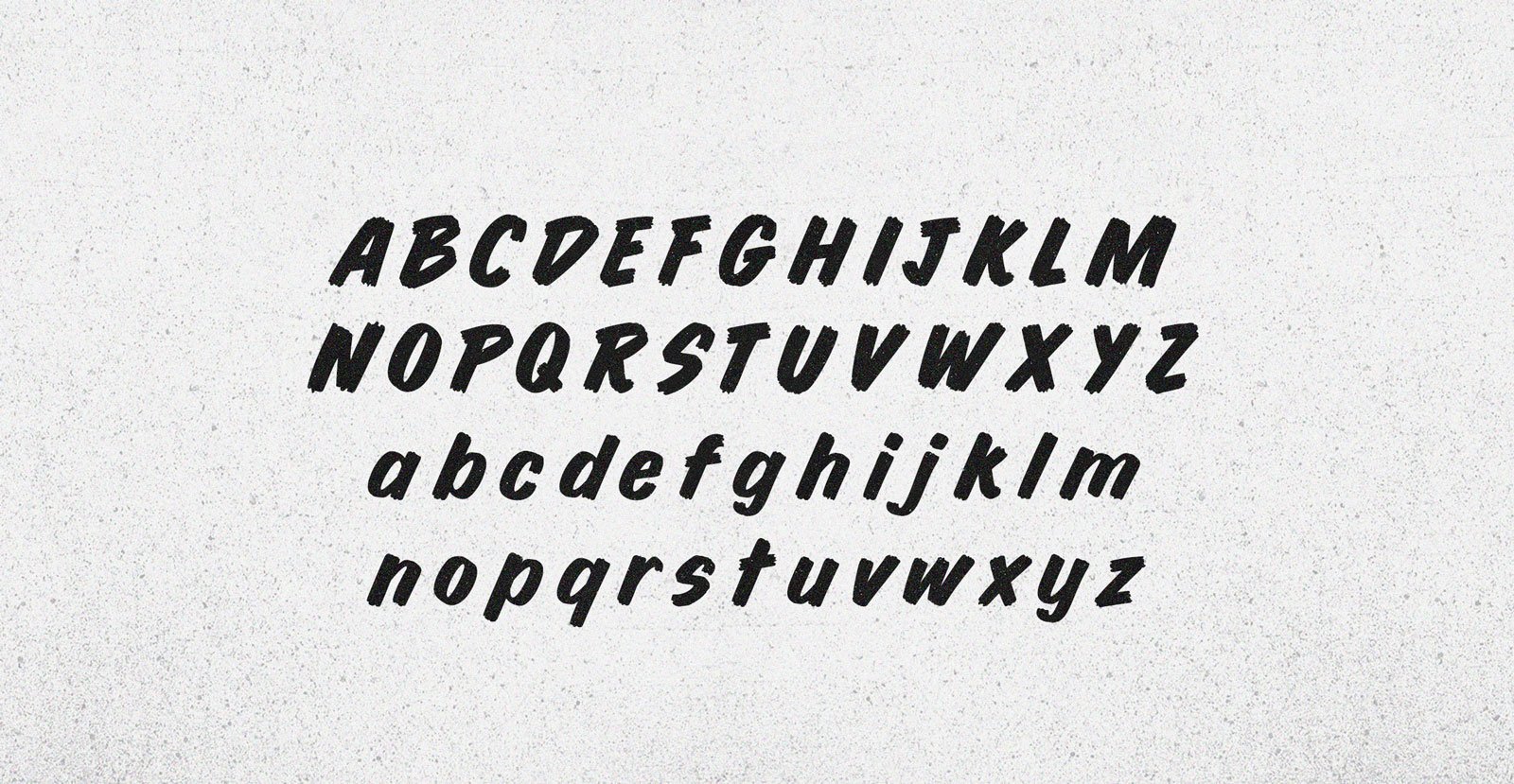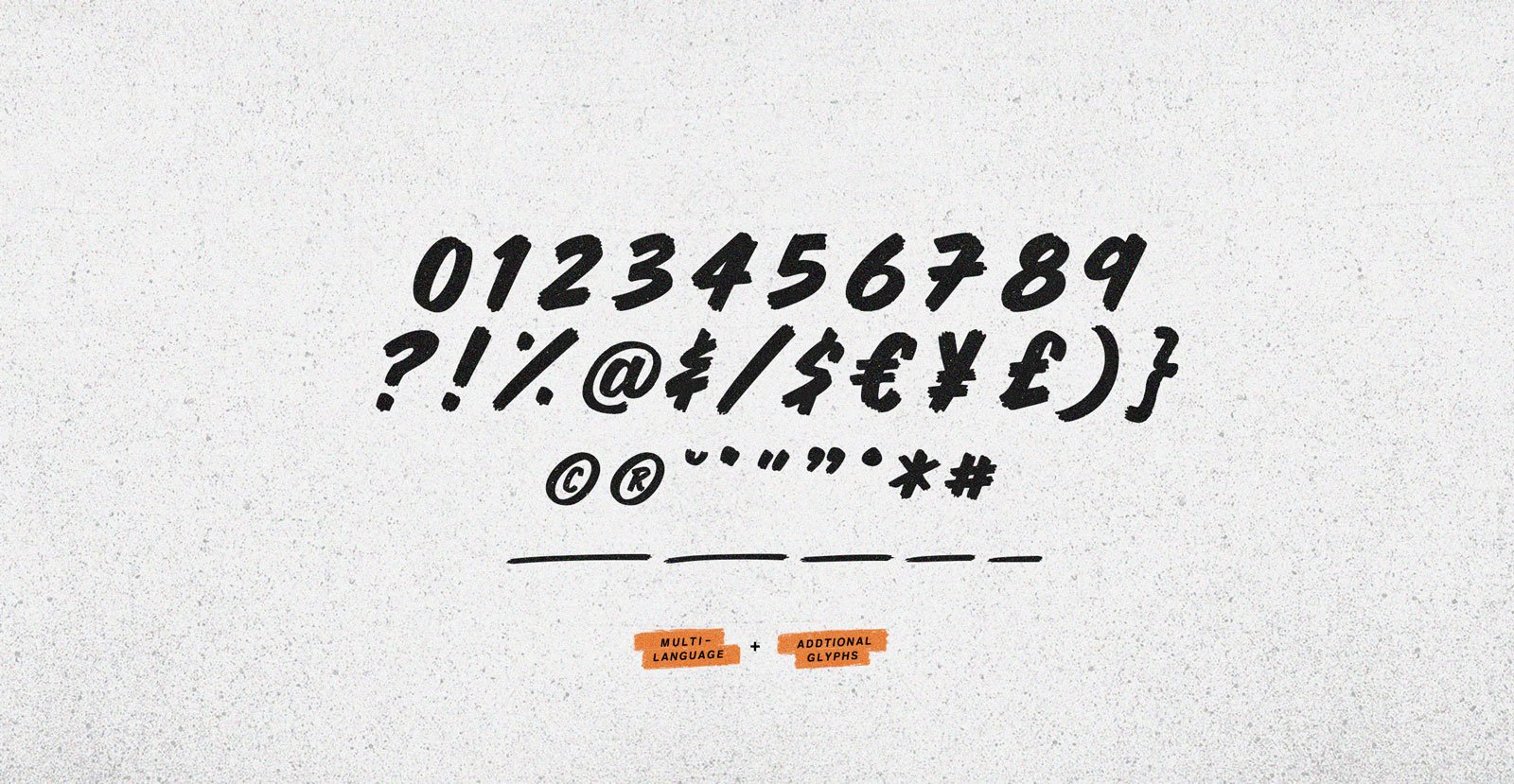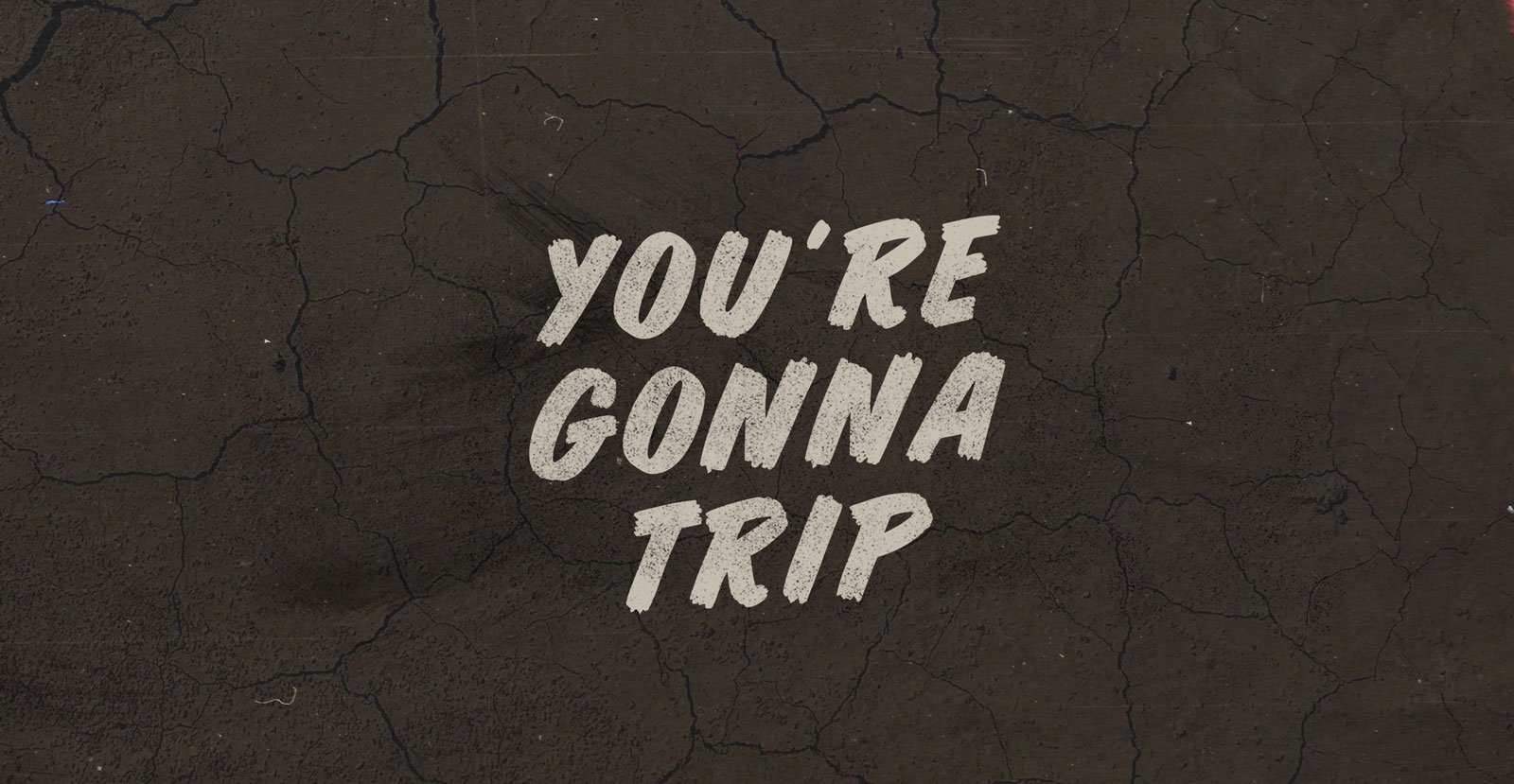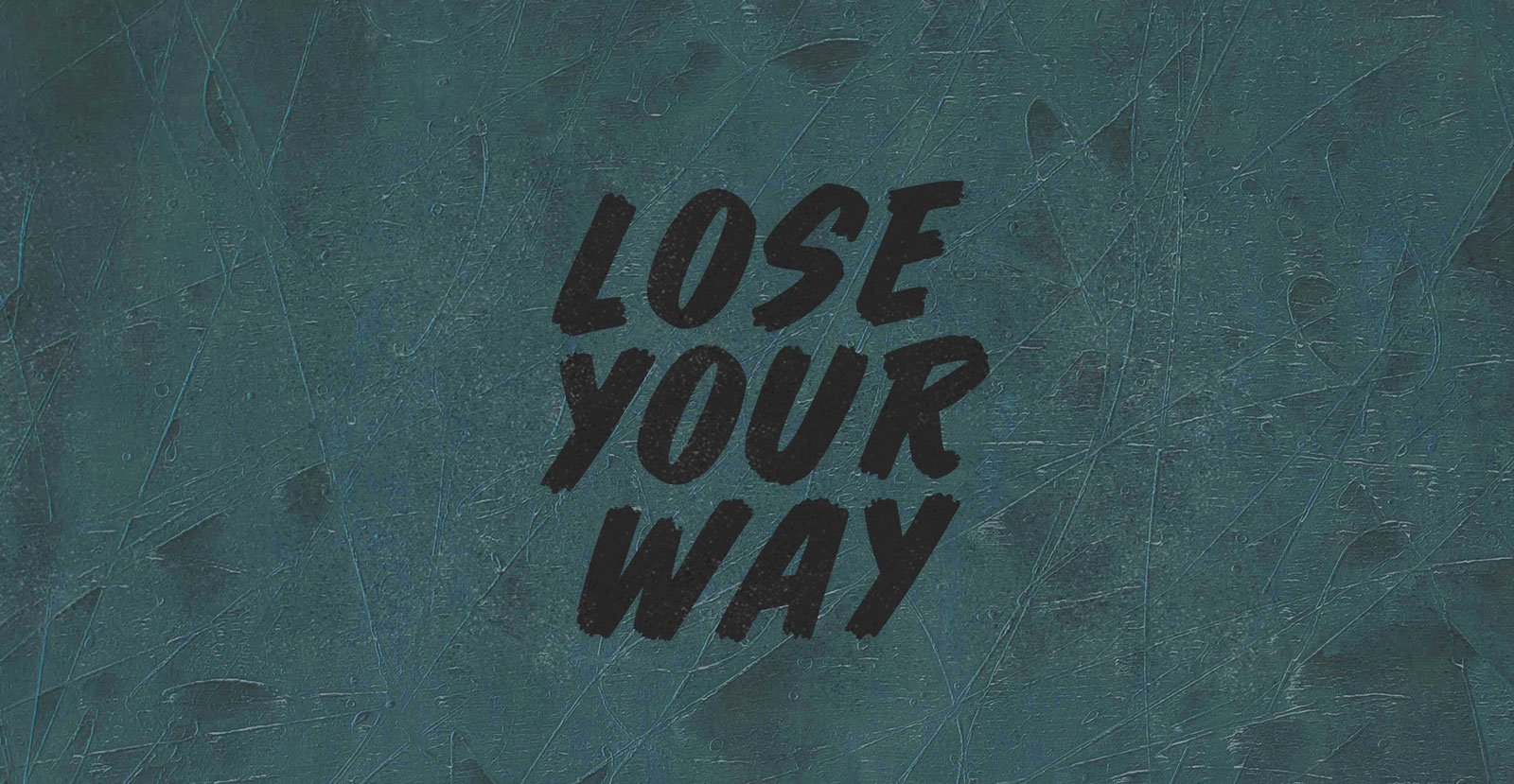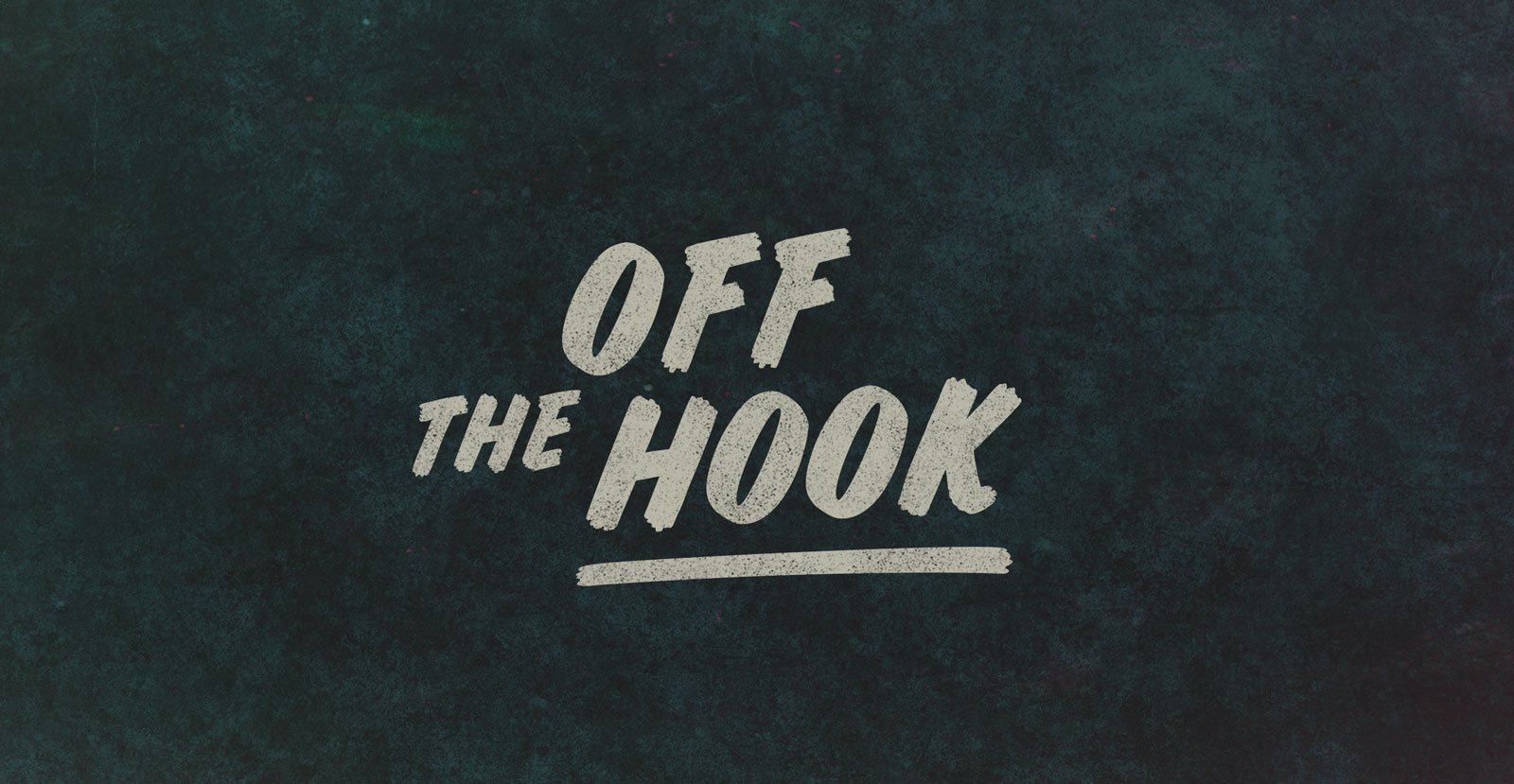
Compass Point
Ferrous housing filed off in fields, a rippling land, navigable rivers disoriented. Drawn from magnetic morality plays and denied cardinal direction: Ex marks the spot, connects the dots, can’t come home, what’s the Compass Point.